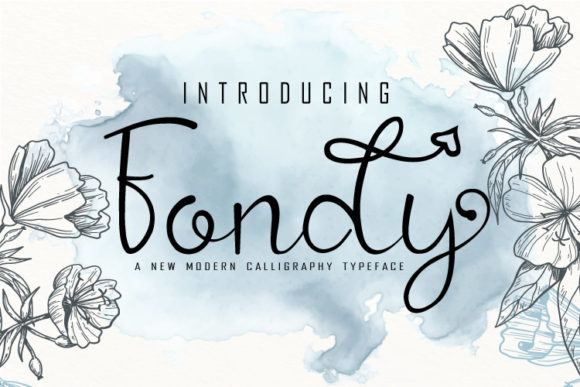
Unleash the allure of your designs with Fondy, a mesmeric script font that captivates with its exquisite grace and enchanting charm. Experience the magic of this handwritten masterpiece, meticulously crafted to evoke a sense of elegance and sophistication in every letterform.
Indulge in the beauty of Fondy's meticulously crafted curves, each stroke flowing seamlessly to create a captivating dance of lines. Its delicate touch adds a touch of whimsy, while its refined structure ensures readability and versatility.
With Fondy, your designs will exude a sense of timeless elegance. Its intricate details and subtle flourishes lend an air of luxury and refinement, perfect for projects that demand a touch of class. From wedding invitations to branding designs, Fondy effortlessly elevates your creations to new heights.
But Fondy's allure extends beyond its aesthetic appeal. Its PUA encoding unlocks a treasure trove of glyphs and ligatures, allowing you to unleash your creativity and add an extra layer of depth and personality to your designs.
Embrace the power of Fondy and watch your designs flourish. Its versatility and charm will transform your projects into captivating masterpieces that leave a lasting impression. Step into the world of Fondy and experience the magic of handwritten beauty.